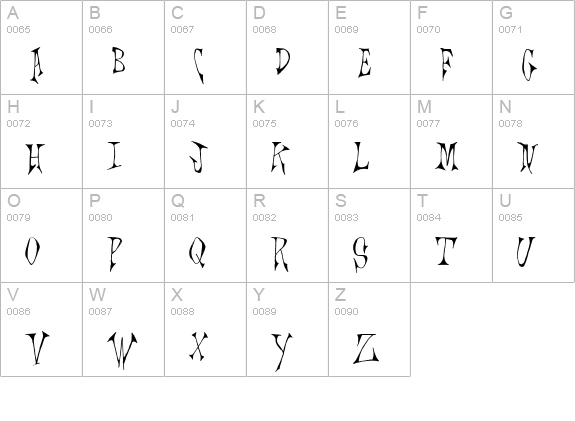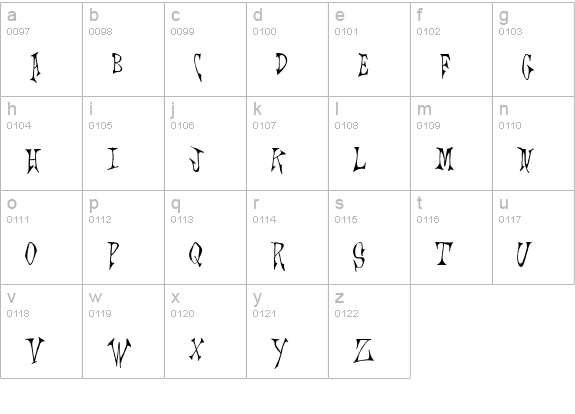
Scrawlings Font Details
Introducing Scrawlings, a beautifully handcrafted font that effortlessly captures the essence of handwritten elegance. With its fluid strokes and delicate curves, Scrawlings brings a touch of whimsy and creativity to any design project. This font exudes a sense of authenticity and personal touch, making it perfect for invitations, greeting cards, logos, and more. Its versatility allows it to seamlessly blend with both modern and traditional aesthetics, adding a unique charm to every piece of text it graces. Scrawlings is not only visually captivating but also incredibly easy to use. Its carefully designed letterforms ensure legibility without sacrificing its artistic appeal. Each character is meticulously crafted to maintain a consistent flow, resulting in a font that is both visually pleasing and effortlessly readable. One of the most exciting aspects of Scrawlings is that it is freely available to download at FontsMarket.com. This means that anyone can enjoy the beauty and versatility of this font without any cost. Whether you are a professional designer, a student, or simply someone looking to add a touch of creativity to your projects, Scrawlings is the perfect choice. So, why wait? Enhance your designs with Scrawlings and experience the magic of handwritten elegance. Download it for free at FontsMarket.com today and let your imagination run wild.